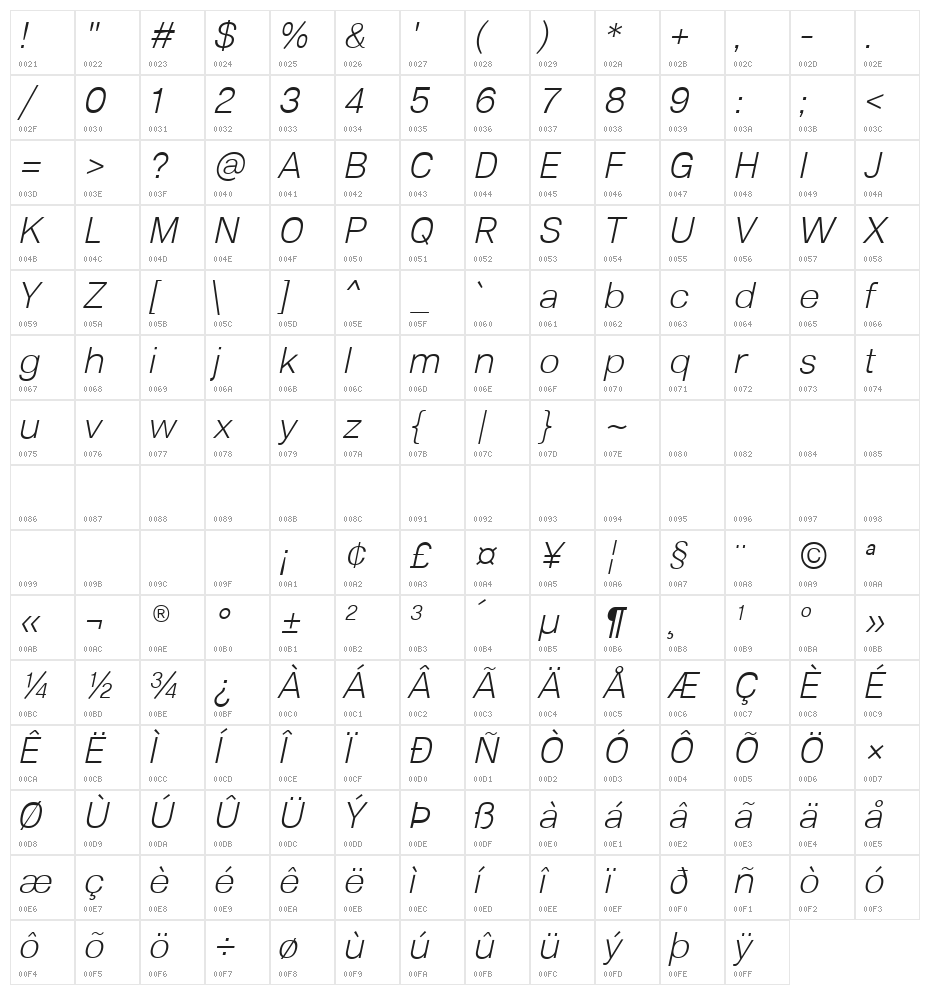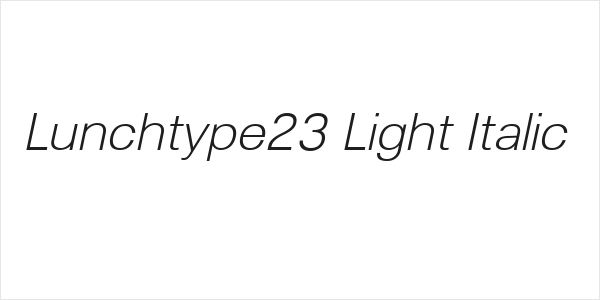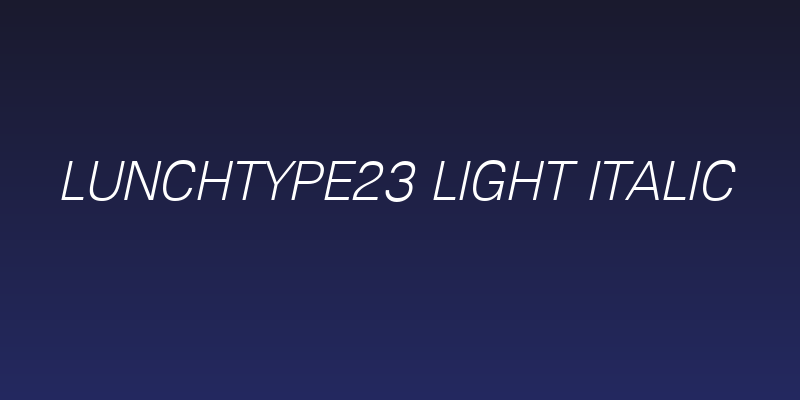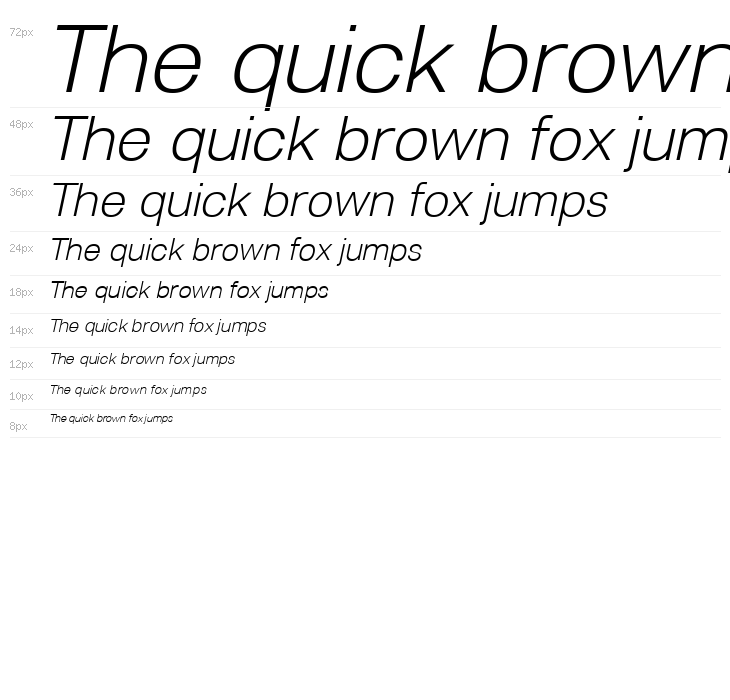
Lunchtype23 Light Italic Font
Lunchtype23 Light Italic Description
This font features a sleek and modern design with a light weight and italic style. The characters are elegantly slanted, providing a sense of motion and fluidity. The sans-serif design ensures a clean and uncluttered appearance, making it suitable for contemporary applications. The spacing between characters is normal, allowing for easy readability while maintaining a stylish look. The font's low contrast in stroke thickness contributes to its minimalist aesthetic, making it versatile for various design needs.
| Proposed Projects | Ideal for modern branding projects, digital interfaces, and minimalist print designs. |